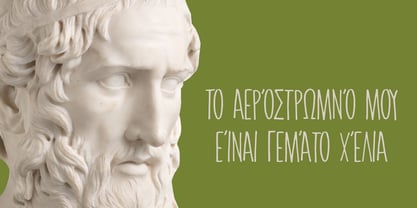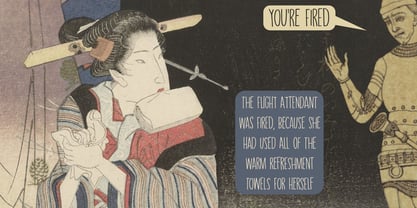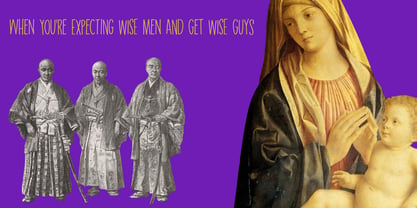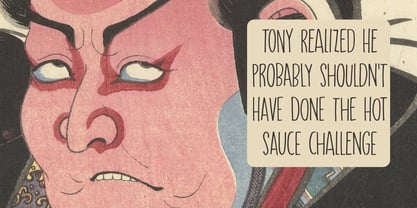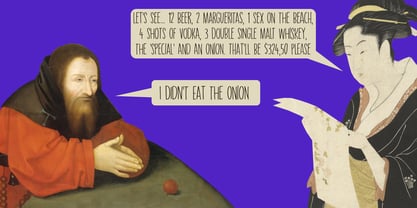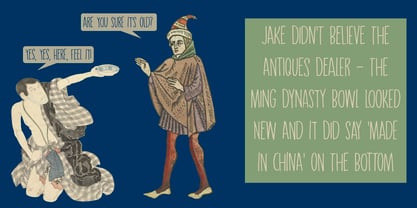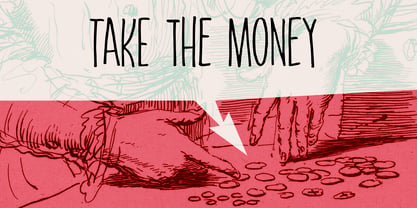
Take The Money Pro
by Hanoded
The Take The Money Pro Font Family was designed by David Kerkhoff and published by Hanoded. Take The Money Pro contains 4 styles and family package options. More about this family
Take The Money Pro is a wonky all caps font, made with a Sharpie pen. The name was inspired by something I read in the newspaper: apparently, a Danish artist received a lot of money from a museum to create two works of art. The works of art should depict the average income of someone from Austria and someone from Denmark - in real money. The museum then loaned him the money and told him he'd receive a certain amount for his work. The artist decided that this would merely cover the costs, so he delivered two empty canvases and called the work: Take The Money And Run.
Take The Money Pro font comes with 2 sets of automatic alternates and some serious language support, including Vietnamese and Greek.
Hanoded is run by Dutchman David Kerkhoff. His fonts are a mishmash of styles, as he just creates whatever pops into his head. You will find a lot of brush fonts in his collection, as his favourite tools are brushes and Chinese ink, with cartoon style fonts and script fonts complementing his repertoire. Aside from making fonts, David occasionally guides tours in far-flung places, renovates his '30's house and tries reasoning with his wife and (teenage) kids. Not an easy task!